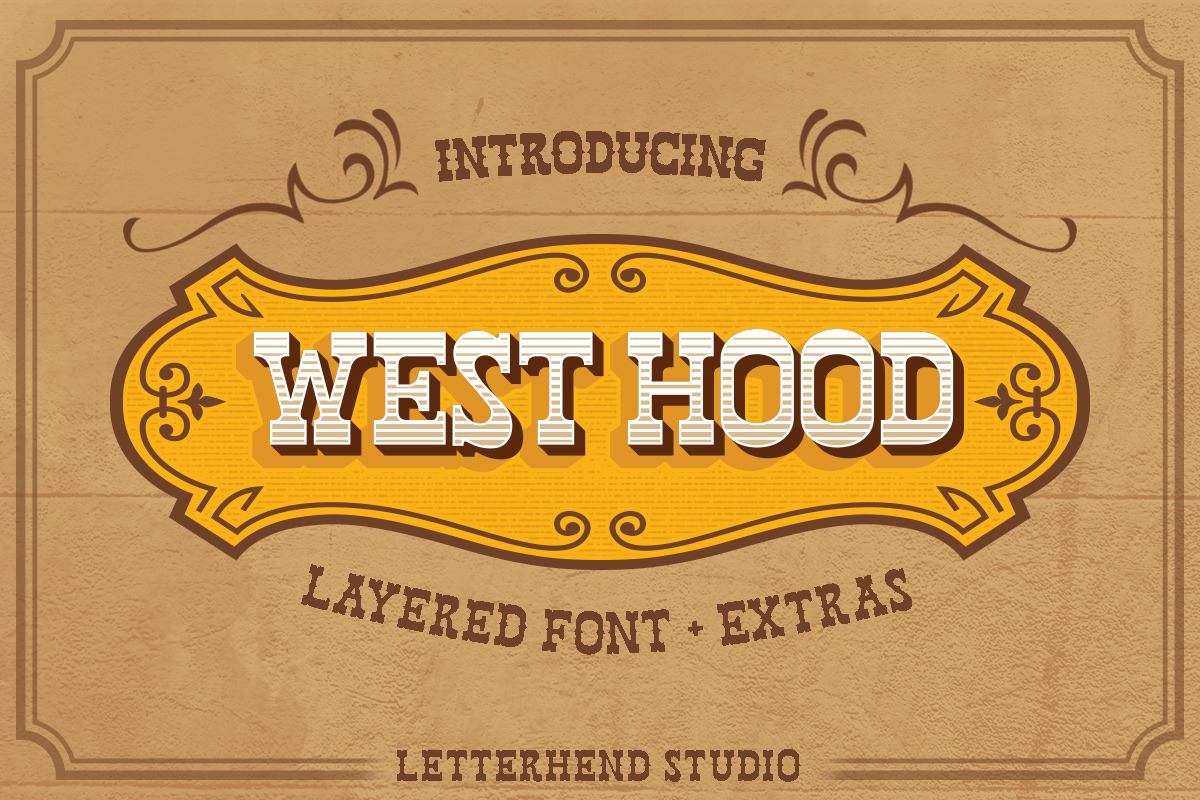
West Hood – 6 Fonts! is perfect for Western-themed branding, cowboy-inspired designs, rustic saloon signage, ranch business materials, country music promotions, vintage rodeo graphics, Western movie titles, frontier-style logos, old west adventure campaigns, authentic cowboy merchandise, Western restaurant menus, and rugged frontier communications.
West Hood – 6 Fonts! is exciting because it delivers an authentic collection of six carefully crafted Western typefaces that capture the rugged spirit and frontier charm of the American Old West through diverse styles that embody the adventure, independence, and untamed character of cowboy culture. This comprehensive font family features everything from bold saloon-style display fonts to elegant Western scripts, each designed to evoke the romance and authenticity of frontier life. The collection's extensive variety ensures perfect Western typography for any project requiring genuine cowboy aesthetics and frontier authenticity.
West Hood – 6 Fonts! includes comprehensive font families: Classic Western Display, Rustic Saloon Style, Elegant Frontier Script, Bold Cowboy Weight, Vintage Ranch Format, Weathered Pioneer Version, plus additional variations including Condensed Trail Width, Extended Prairie Format, Distressed Frontier Effects, and Special Western Symbols, providing unlimited creative possibilities for Western-themed and frontier design projects that celebrate cowboy heritage and frontier spirit.
This authentic typography collection transforms ordinary communications into genuine Western experiences through its diverse frontier aesthetics and cowboy-inspired design language. West Hood – 6 Fonts! Free Download enables designers and Western brands to access a premium collection of frontier typography that instantly adds authenticity, rugged charm, and Western appeal to any creative project. The collection's comprehensive variety ensures perfect font combinations while maintaining consistent quality and distinctive Western character across all six styles.
Western businesses, country music brands, and frontier-themed companies trust West Hood – 6 Fonts! for its ability to communicate authenticity, rugged independence, and Western heritage to audiences seeking genuine cowboy experiences and frontier aesthetics. The typeface collection's robust construction performs beautifully across various applications, from intimate Western communications to large-scale frontier branding campaigns. Its extensive character support includes multilingual capabilities and Western-themed design elements that enhance authentic frontier brand presentations.
The creative inspiration behind West Hood – 6 Fonts! draws from classic Western signage, frontier town typography, and the rich visual heritage of American cowboy culture that continues to inspire modern Western design and frontier aesthetics. This heritage-focused approach creates a font collection that feels genuinely Western while maintaining contemporary appeal across different frontier contexts and cowboy brand expressions.
Whether creating Western business identities, frontier event materials, or cowboy marketing campaigns, this six-font collection delivers exceptional results that capture the essence of authentic Western spirit and frontier charm. Download West Hood – 6 Fonts! today and discover how premium Western typography can transform your design projects into rugged expressions of frontier heritage, cowboy authenticity, and the untamed spirit that defines the most genuine Western and frontier communications.